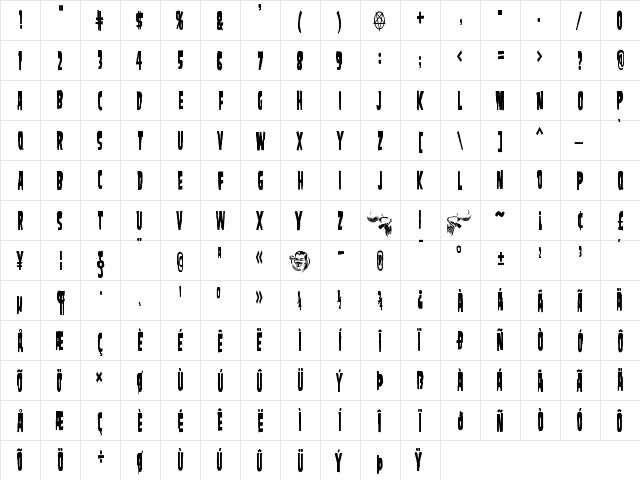
SamdanEvilCondensed Regular Font Preview
SamdanEvilCondensed Regular
SamdanEvilCondensed Regular Font Details
Design Context for SamdanEvilCondensed Typeface
SamdanEvilCondensed is a composed and adaptable typeface that performs quietly and consistently across a wide range of design contexts. The condensed width makes it efficient for tight spaces without sacrificing legibility.